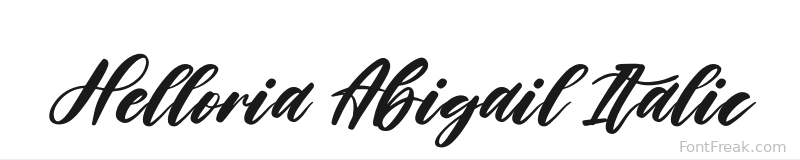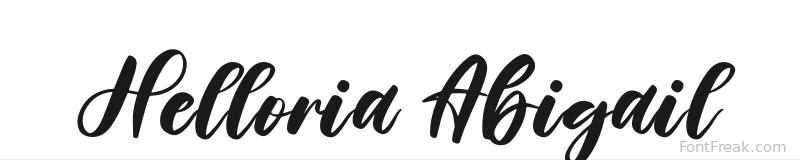
Helloria Abigail Italic
Helloria Abigail
About Helloria Abigail Italic
Helloria Abigail Italic is a captivating script font designed by Perspectype Studio in 2021, available as freeware. This font embodies a graceful and fluid style, characterized by elegant, sweeping strokes that evoke a sense of sophistication and warmth. The stroke weight varies delicately, offering a beautiful contrast that enhances its handwritten aesthetic. The spacing is well-considered, allowing for clear readability while maintaining an artistic flair, perfect for various design applications.
This font is particularly well-suited for wedding invitations, where its romantic curves can add a personal touch to the occasion. It also shines in branding for boutique businesses, helping to create an inviting atmosphere that resonates with customers. Additionally, Helloria Abigail Italic can elevate restaurant menus, adding an artisanal quality that makes the dining experience feel special. Content creators will find it useful for social media graphics, where the font's charm can capture attention and convey messages with style.
The target audience for this font includes graphic designers seeking unique typefaces for their projects, small business owners looking to establish a memorable brand identity, and content creators who desire to add a distinctive touch to their digital presence. Its versatility makes it a valuable asset for anyone aiming to infuse creativity into their work.
What sets Helloria Abigail Italic apart is its ability to blend elegance with approachability. The font's artistic nuances and flowing design make it a standout choice for various applications, allowing users to communicate their messages with both beauty and personality. With the Helloria Abigail Italic font free download, you can easily incorporate this stunning typeface into your projects and elevate your design game.